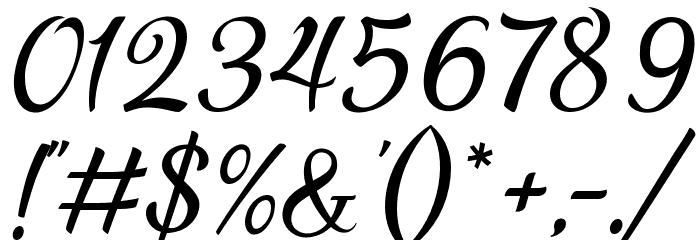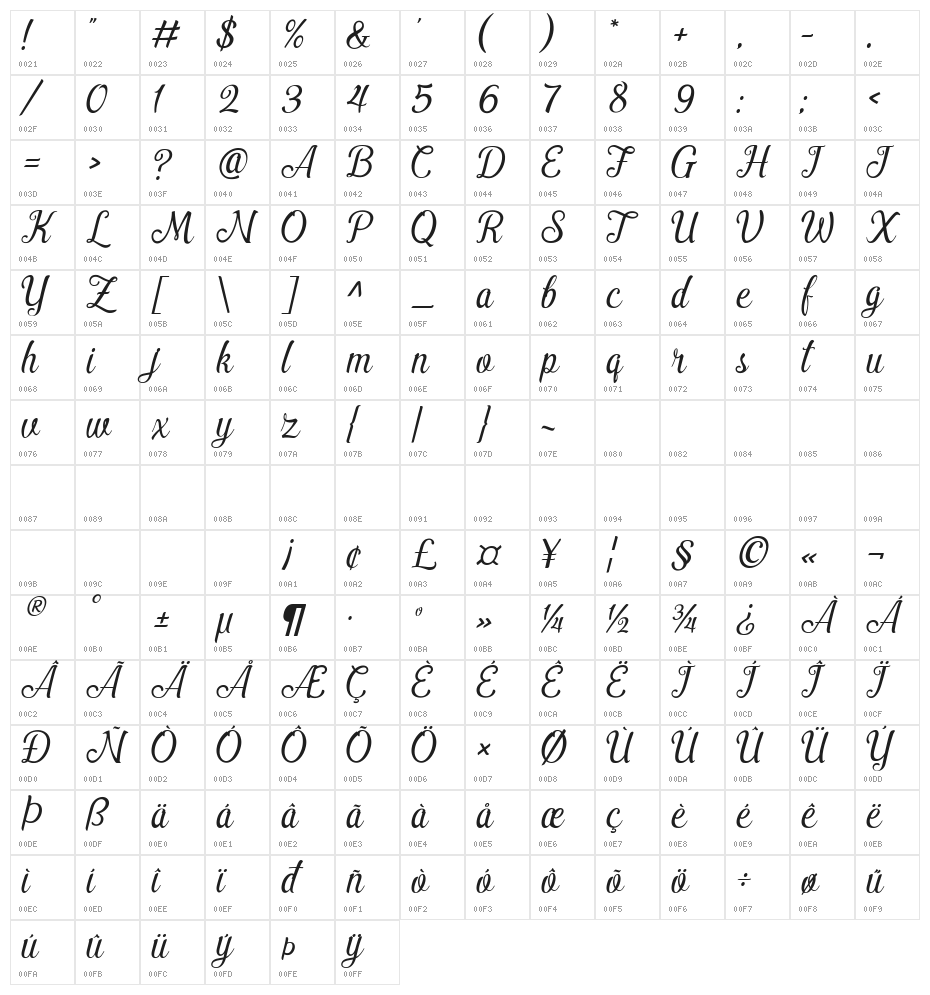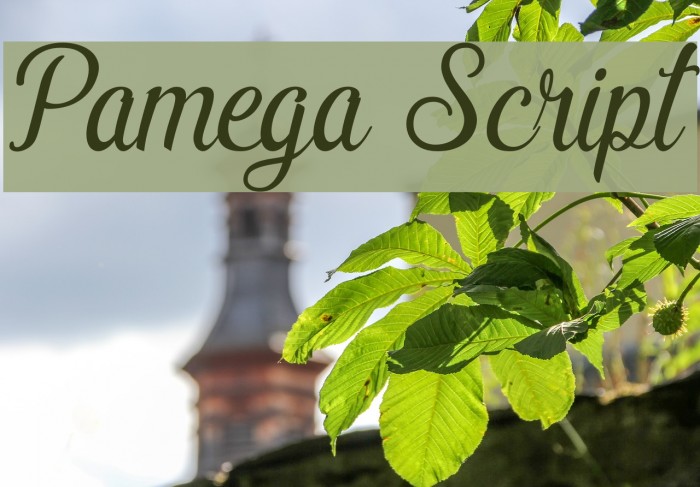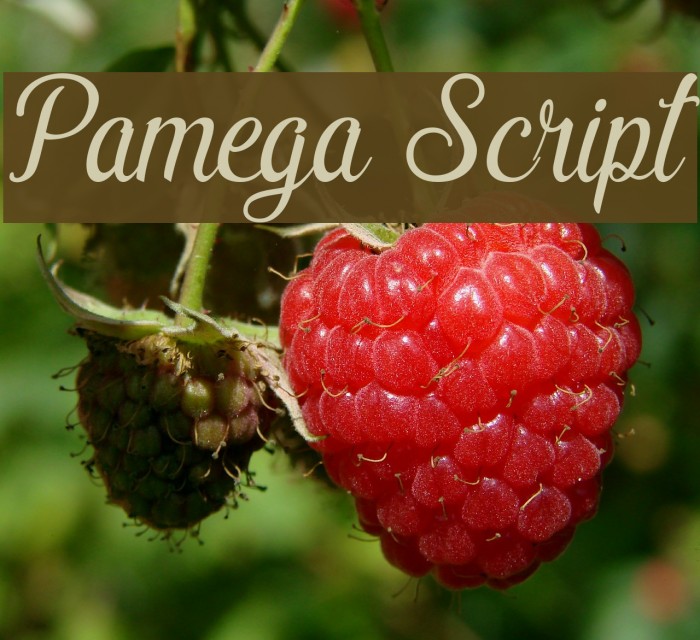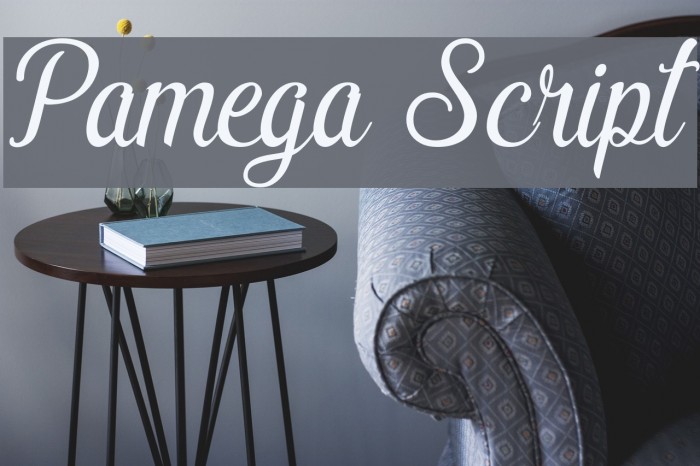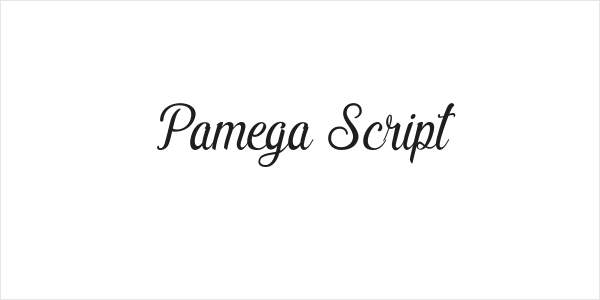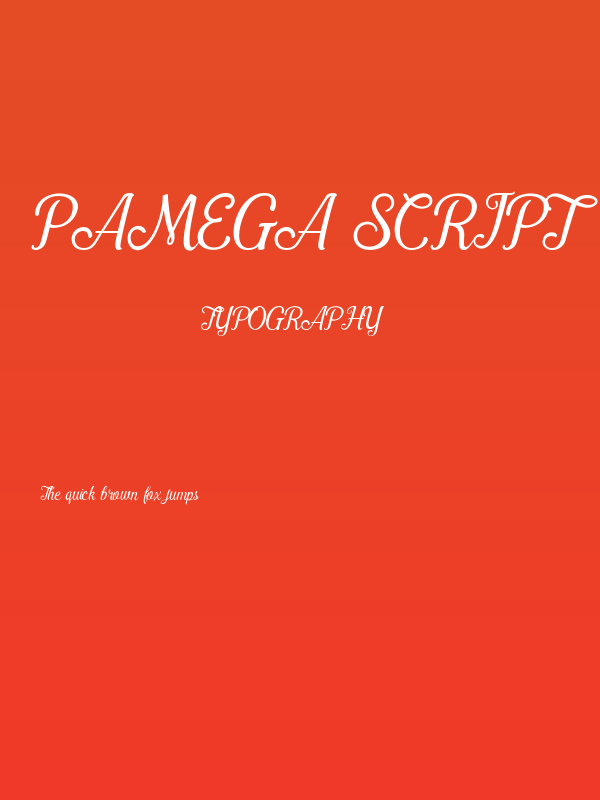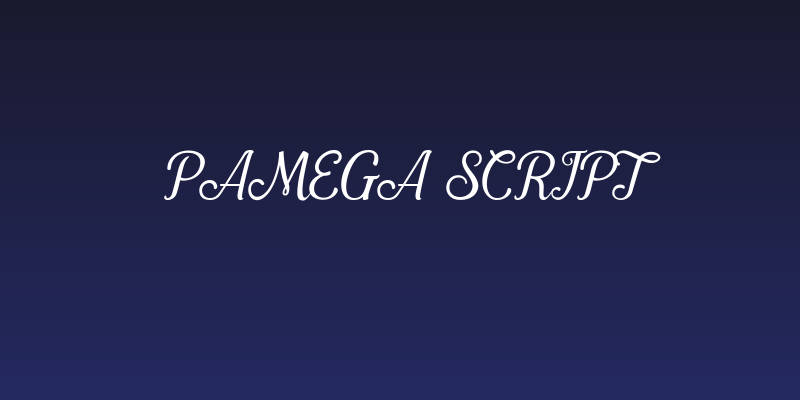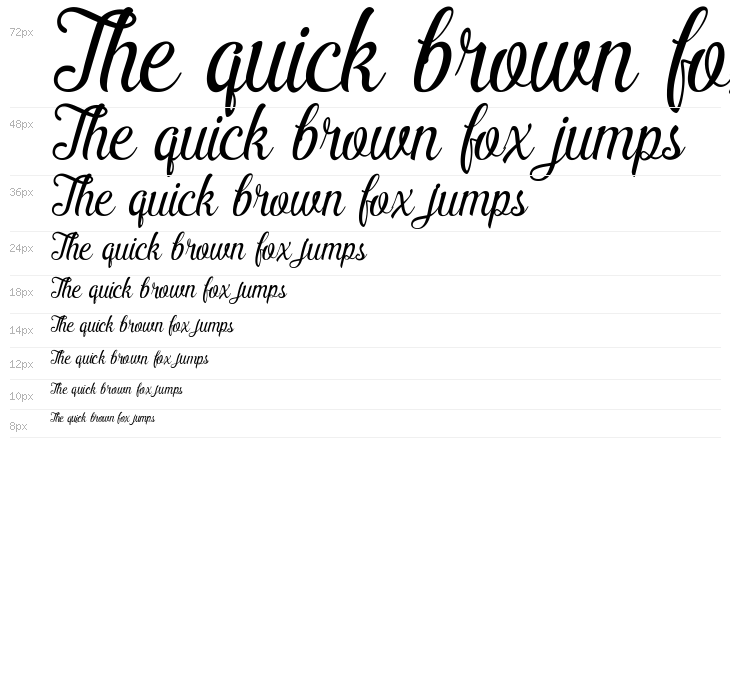
Pamega Script Font
Pamega Script Description
This font is an elegant script typeface characterized by its flowing, cursive style. The letters are interconnected, creating a smooth and continuous line that mimics the fluidity of handwriting. The uppercase letters are ornate with subtle flourishes, while the lowercase letters maintain a consistent slant, enhancing the script's dynamic appearance. The numerals and special characters are designed to match the overall aesthetic, ensuring a cohesive look across all text. This font exudes a sense of sophistication and grace, making it suitable for formal and decorative applications.
| Proposed Projects | Ideal for wedding invitations, greeting cards, elegant branding, and decorative signage. |